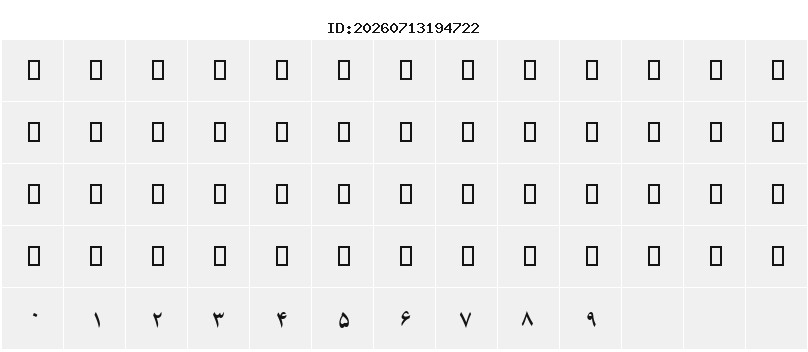
• Font Name: B Karim
• Font ID: Borna Karim Bold
• Full Font Name: B Karim Bold
• Version: Version 2.01 - Build 1379
• PostScript Name: BKarimBold
• Character Count: 288
About B Karim.ttf
B Karim.ttf is a modern, elegant sans-serif font designed for ultimate readability and visual harmony. Perfect for branding, headlines, web design, and print materials.